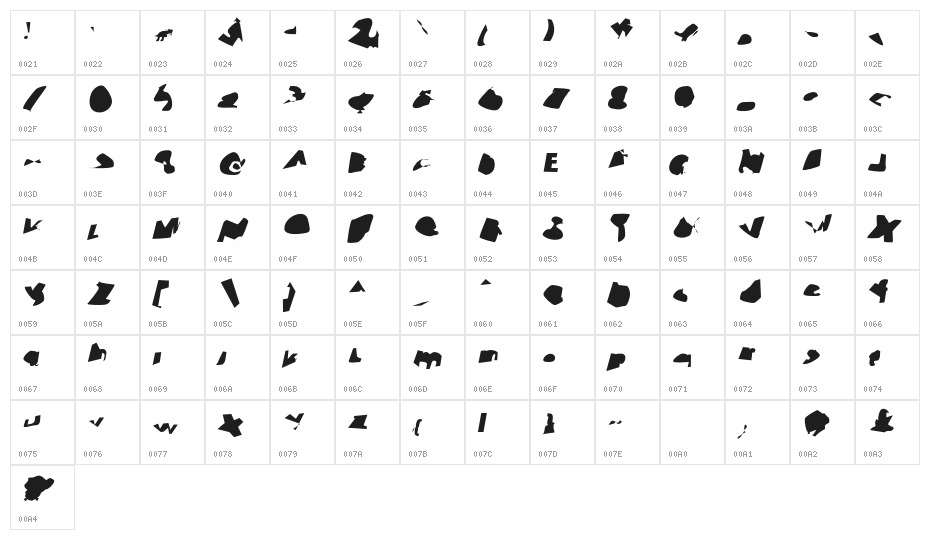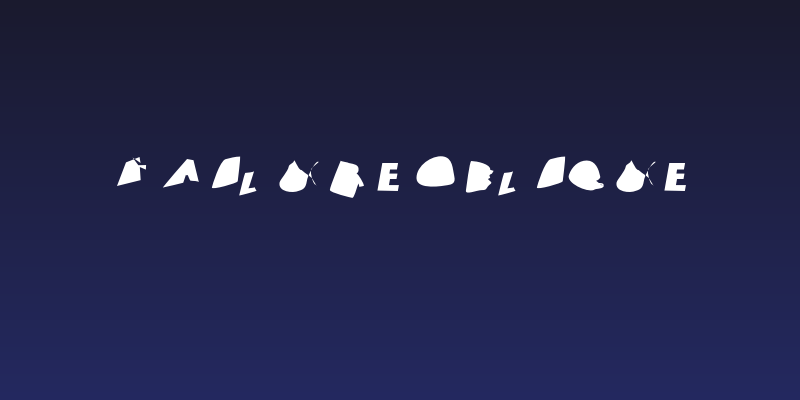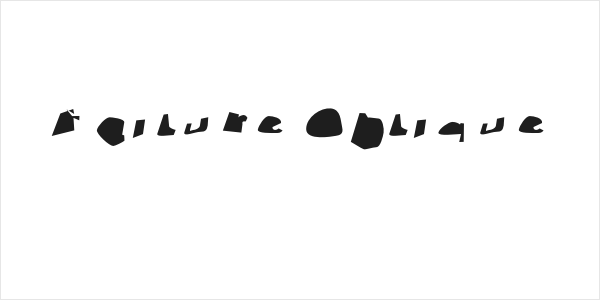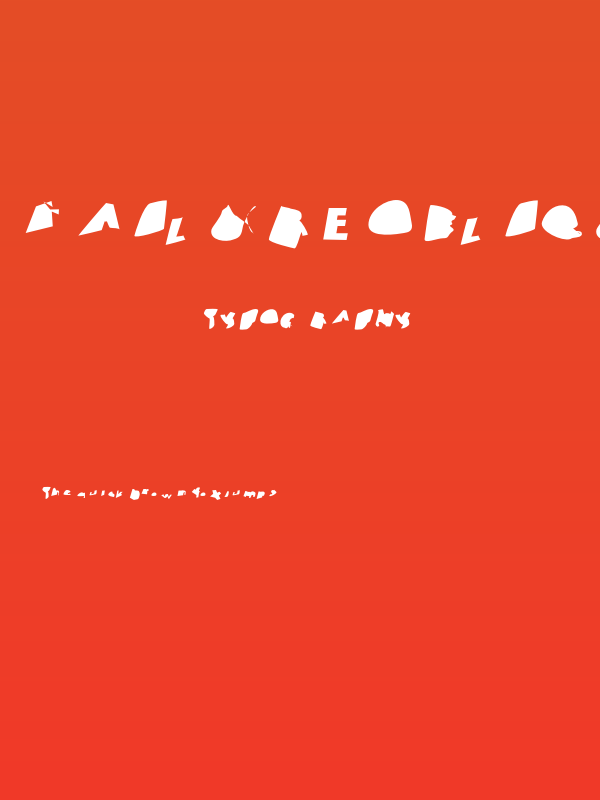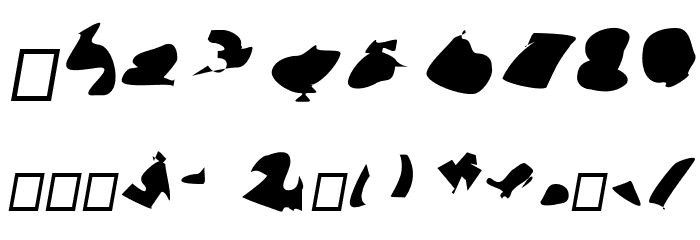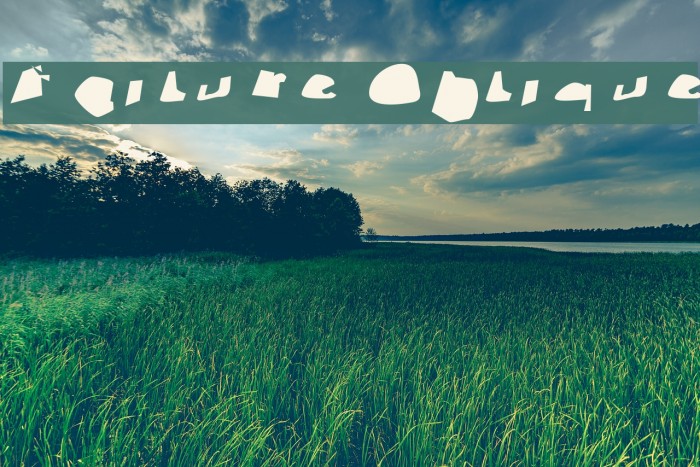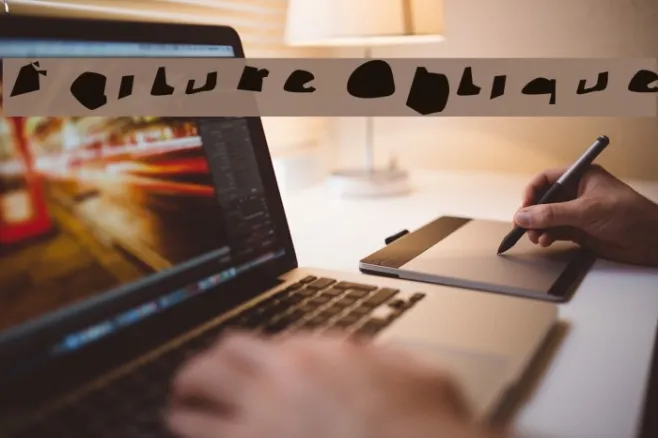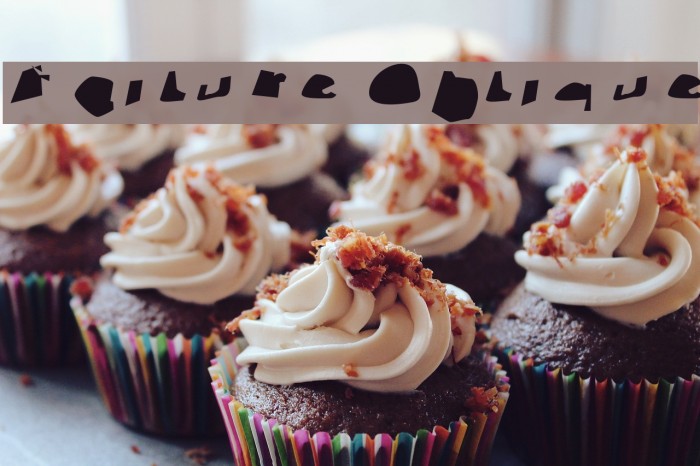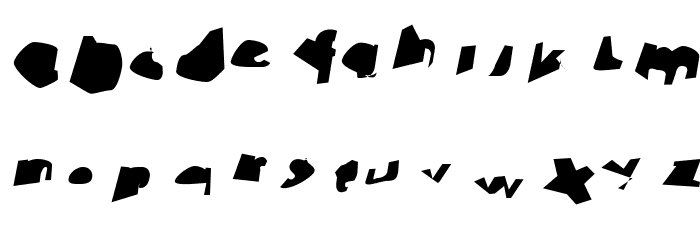
Failure Oblique Font
Failure Oblique Description
This font features a highly abstract and fragmented design, characterized by its bold, angular shapes and irregular forms. Each character appears to be a unique, artistic interpretation, with varying degrees of distortion and asymmetry. The overall appearance is chaotic yet visually striking, making it ideal for projects that require a strong, unconventional aesthetic. The font's style is reminiscent of modern art movements, with a focus on breaking traditional typographic norms. Its distinctiveness makes it suitable for creative and experimental design projects.
| Overall Style | Modern, Artistic |
| Use Case | Headlines, Artistic projects, Experimental design |
| Proposed Projects | Ideal for avant-garde posters, album covers, experimental branding, and artistic installations. |